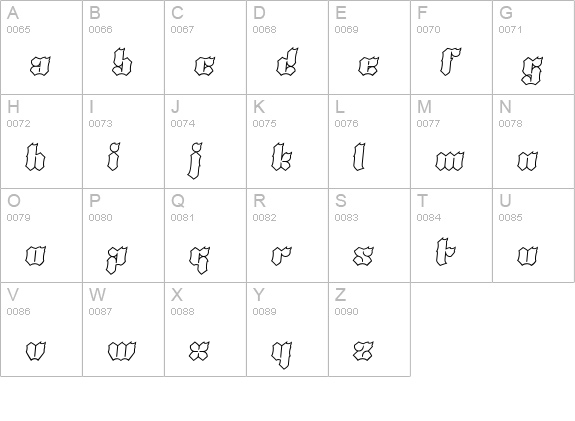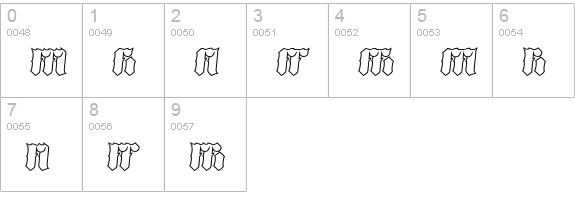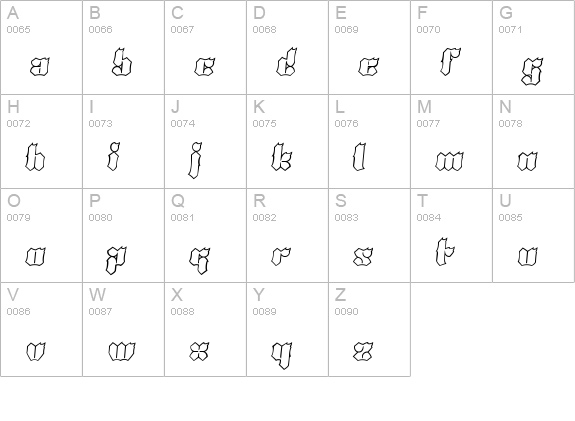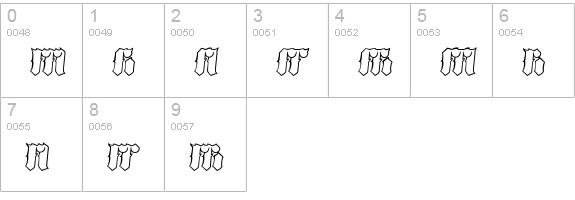
Molotov Font Details
Introducing the striking and bold Molotov font, a versatile typeface that exudes power and creativity. With its sharp edges and modern aesthetic, this font is perfect for making a statement in your designs. Whether you're creating posters, logos, or branding materials, Molotov is sure to leave a lasting impression. What's even better is that Molotov is completely free to download at FontsMarket.com. That's right, you can elevate your projects with this eye-catching font without spending a dime. Take advantage of this opportunity to enhance your designs and stand out from the crowd with Molotov font. Download it today and unleash your creativity!